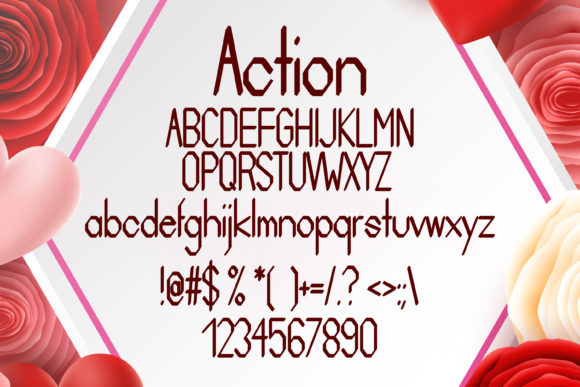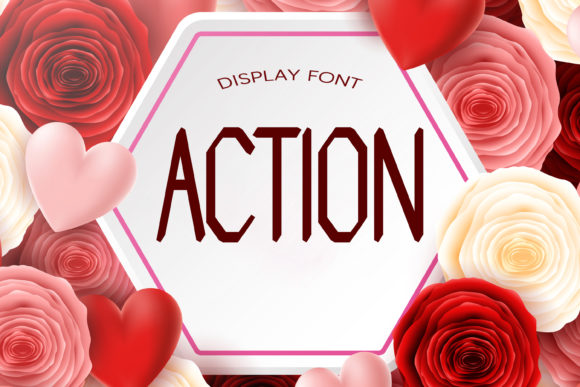
Introducing Action Font: The Ultimate Futuristic Display Font
Are you tired of using the same old fonts in your designs? Look no further! Action Font is a game-changing, futuristic, and simple lettered display font that’s about to take your creations to the next level. Its natural and unique style makes it incredibly versatile, allowing you to apply it to a wide range of designs. The only limit is your imagination!
What Makes Action Font Stand Out?
Action Font boasts a distinctive and modern aesthetic that’s perfect for designers and crafters looking to add a touch of futurism to their work. Its clean lines, simple shapes, and carefully crafted letterforms make it both visually striking and highly legible. Whether you’re working on a logo, a poster, a website, or any other design project, Action Font is sure to make a lasting impression.
Key Features of Action Font
- Futuristic Design: Action Font’s sleek and modern design makes it perfect for projects that require a cutting-edge look.
- Simple and Clean: The font’s simple shapes and clean lines ensure that it’s highly legible, even at small sizes.
- Unique Style: Action Font’s distinctive aesthetic sets it apart from other fonts, making it a great choice for designers looking to create something truly original.
- Highly Versatile: With its natural and unique style, Action Font can be applied to a wide range of designs, from logos and posters to websites and more.
Use Cases for Action Font
So, what can you use Action Font for? The possibilities are endless! Here are a few ideas to get you started:
- Logo Design: Create a bold and memorable logo for your brand or business with Action Font.
- Poster Design: Use Action Font to create eye-catching posters for events, promotions, or social media campaigns.
- Web Design: Add a touch of futurism to your website with Action Font, perfect for tech startups, innovation hubs, or creative agencies.
- Social Media Graphics: Create engaging social media graphics, such as Facebook posts, Instagram stories, or Twitter headers, with Action Font.
Tips for Using Action Font
To get the most out of Action Font, here are a few tips to keep in mind:
- Experiment with Colors: Action Font looks great in bold, bright colors. Don’t be afraid to experiment with different color schemes to find the one that works best for your design.
- Play with Sizes: Action Font is highly legible, even at small sizes. Experiment with different font sizes to create visual interest and hierarchy in your design.
- Combine with Other Fonts: Action Font pairs well with other fonts, especially those with a more traditional or serif design. Experiment with font combinations to create a unique look.
In conclusion, Action Font is a game-changing display font that’s perfect for designers and crafters looking to add a touch of futurism to their work. Its unique style, versatility, and high legibility make it an excellent choice for a wide range of design projects. So why wait? Download Action Font today and unleash your creativity!